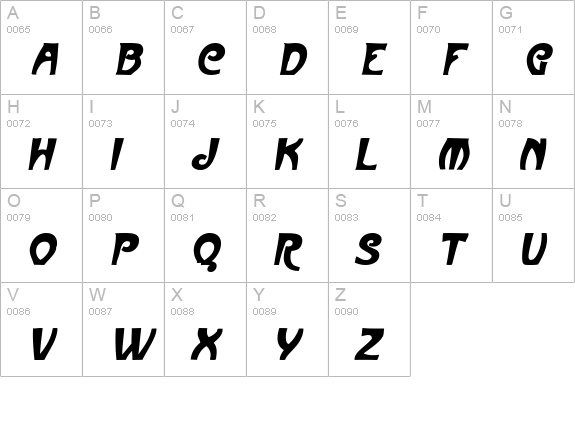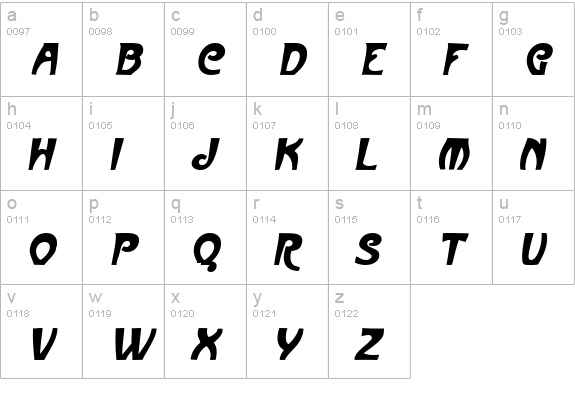
MullinsCaps Bold Italic Font Details
MullinsCaps Bold Italic is a strong, high-contrast, italic variant in the MullinsCaps typeface family \xE2\x80\x94 well suited to headlines, attention-grabbing titles, and strong calls-to-action.
MullinsCaps Bold Italic font is a striking and dynamic typeface that exudes a sense of modernity and sophistication. With its bold yet elegant design, this font is perfect for creating eye-catching headlines, titles, and logos that demand attention. The unique italicized style adds a touch of flair and creativity to any design project. What sets MullinsCaps Bold Italic font apart is not only its aesthetic appeal but also its accessibility. This font is available for free download at FontsMarket.com, making it a valuable resource for designers, creatives, and anyone looking to enhance their projects with a touch of bold elegance. Whether you're designing a poster, website, or branding materials, MullinsCaps Bold Italic font is sure to make a powerful statement. Download it today and elevate your design projects with this stunning typeface.